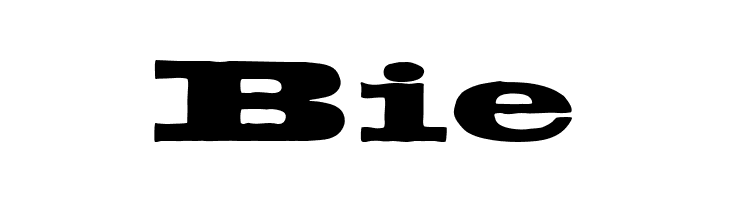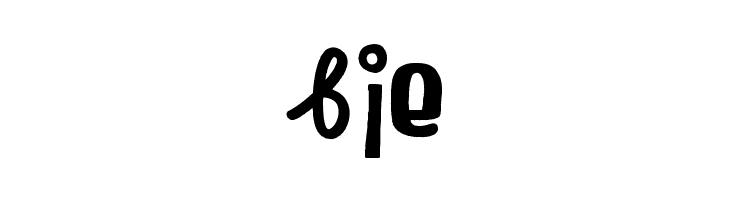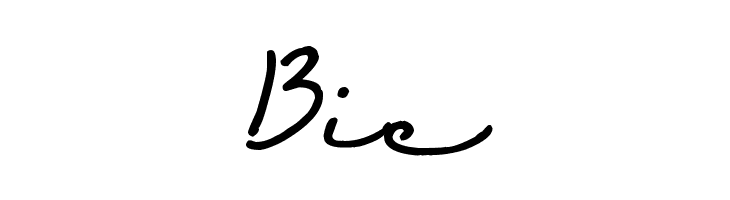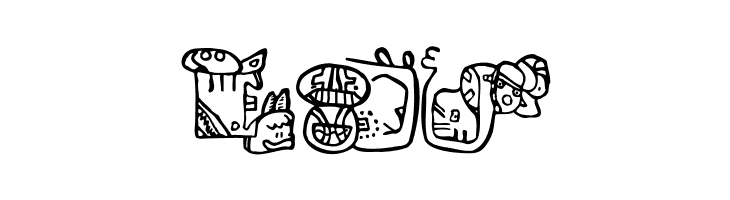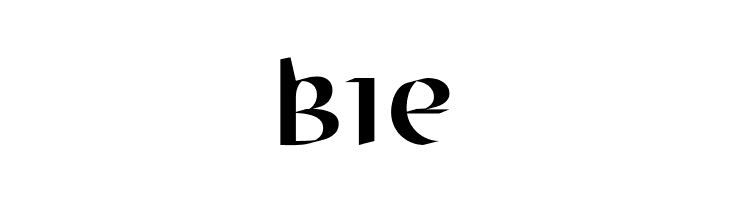
A fluid and elegant script font with medium contrast and artistic flair.
A dynamic, expressive handwritten font with fluid, energetic strokes.
A bold, textured font with a hand-drawn, brush-like appearance.
A playful, hand-drawn font with thin, elongated strokes and a whimsical style.
A modern, geometric font with bold, angular characters.
A bold, geometric font with strong lines and uniform height.
A bold, rough-textured font with a vintage, handcrafted feel.
A decorative font made of expressive clown faces for each character.
A playful, bold font with rounded, thick strokes and a whimsical style.
A playful and whimsical font with rounded, expressive letterforms and charming heart motifs.
A playful, bold font with thick, rounded strokes and a friendly appearance.
A whimsical and decorative font with bold, flowing letterforms and artistic swirls.
A playful, bold font with rounded edges and a friendly style.
A whimsical, star-adorned decorative font with tall, narrow letters.
A playful, informal handwritten font with irregular strokes and a whimsical style.
A playful, hand-drawn font with dynamic strokes and whimsical bird illustrations.
A whimsical, hand-drawn font with playful bird-themed characters.
A bold, graffiti-inspired font with intricate, angular designs.
A bold, dynamic script font with elegant curves and a lively appearance.
A modern, elegant script font with flowing, connected strokes.
An elegant, flowing script font with a handwritten appearance.
A graceful script font with fluid, cursive strokes and elegant character design.
A bold, cursive script font with a flowing, connected style.
Elegant, monoline handwritten script with flowing connections.
A bold, decorative font with rounded characters and a vintage flair.